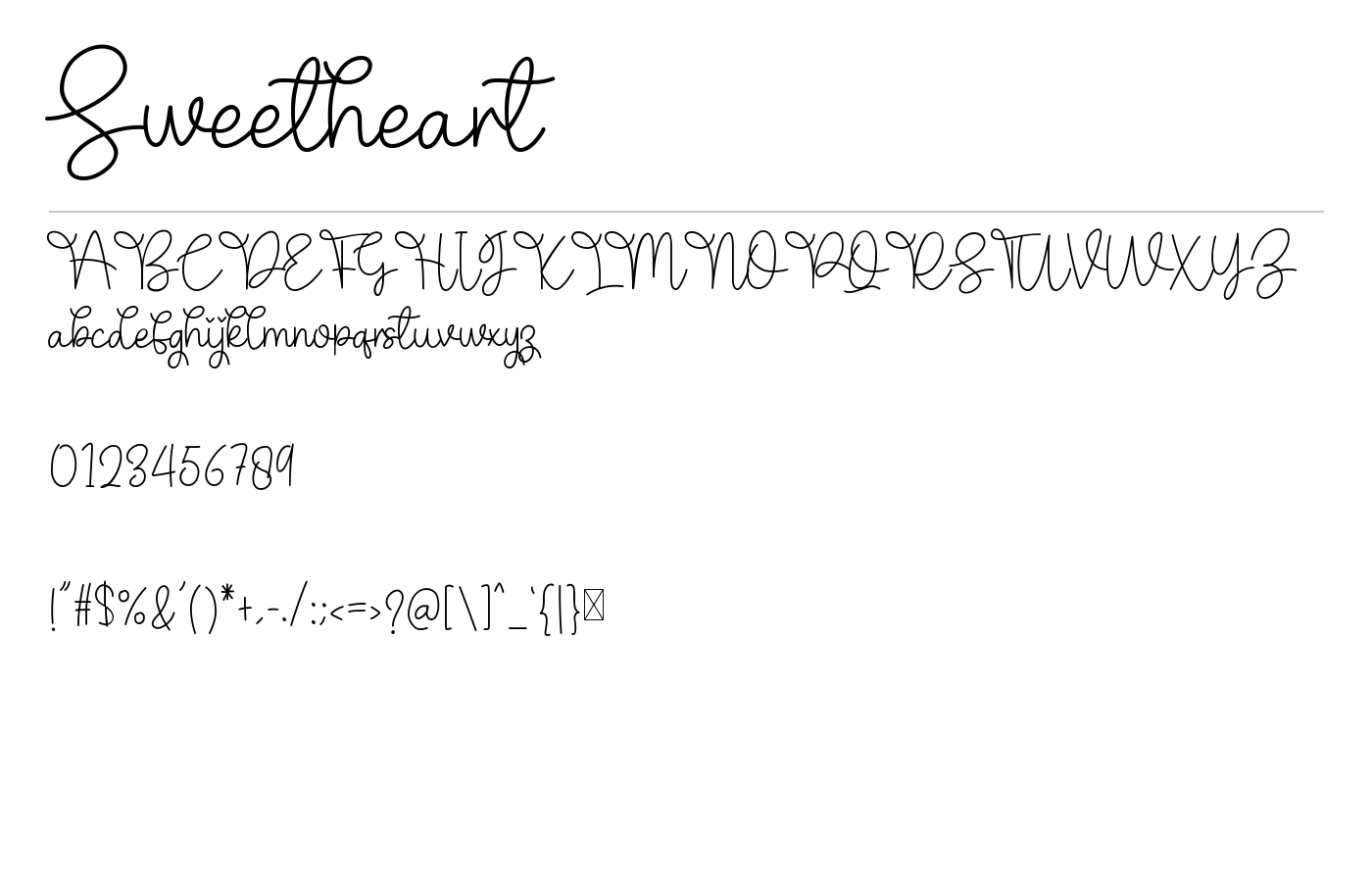
Sweetheart Font is a delicate, hand-drawn script with thin, airy strokes and a playful, whimsical character. Its tall, looping letterforms and intricate curls give it a charming, romantic feel, perfect for invitations, greeting cards, and feminine branding where a personal touch is desired. This font shines in designs that need a light, elegant, and approachable style with a handcrafted vibe.
Sweetheart Font
About Sweetheart Font